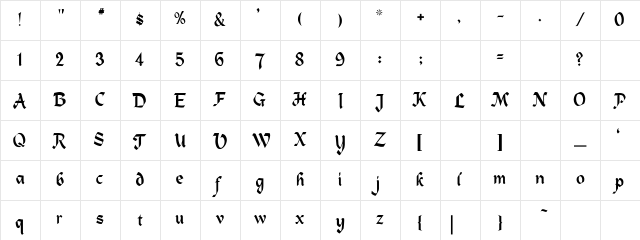
Heidelbe Light Free Font
Heidelbe Light
Complete Heidelbe Light glyph index. Displaying only characters natively supported by Heidelbe Light font.
Design Context for Heidelbe
Heidelbe is a composed and adaptable typeface that performs quietly and consistently across a wide range of design contexts. Its slender proportions lend an understated elegance to any composition.